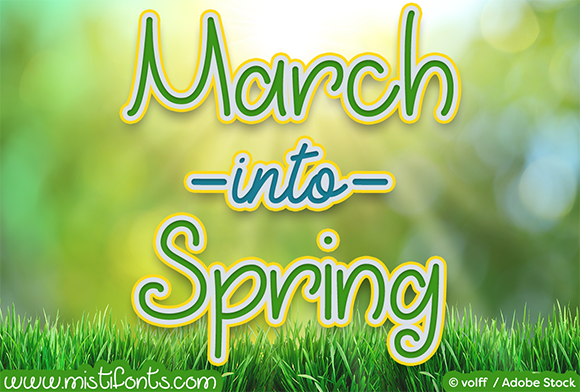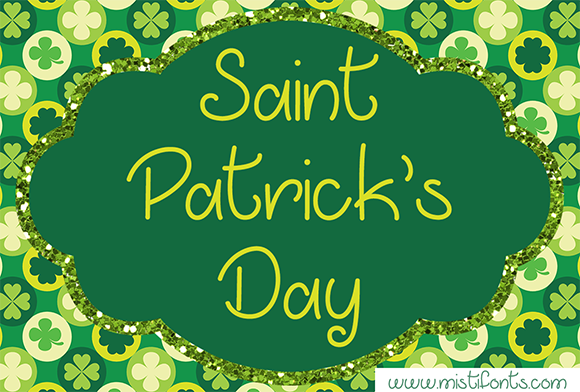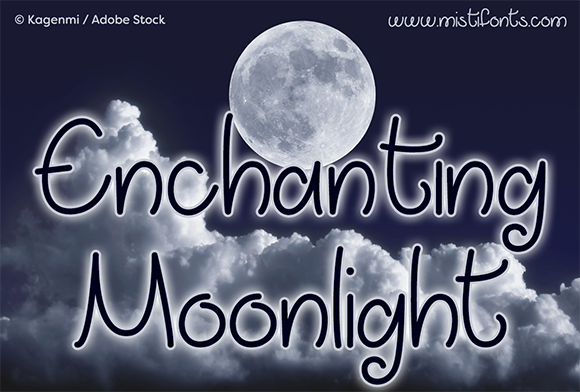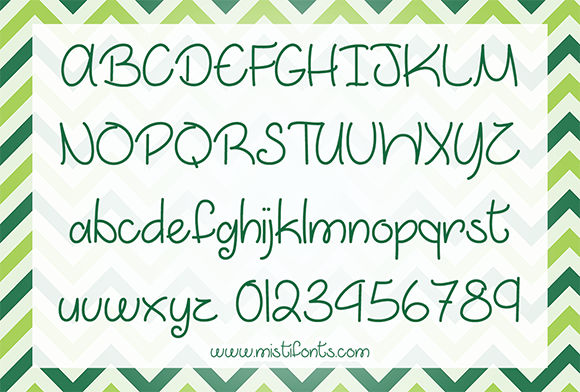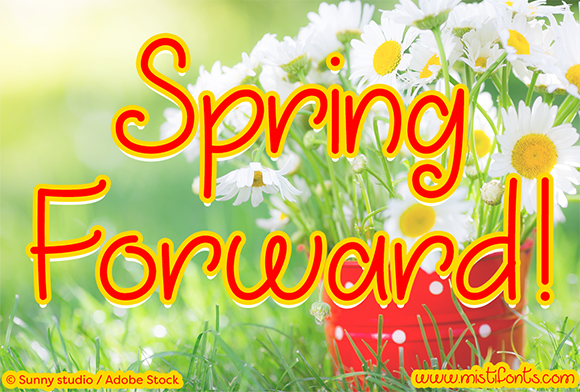
HomeScript FontsMarch into Spring Font Script Fonts March into Spring Font FacebookXPinterestWhatsApp March into Spring Font Poster 2 March into Spring Font Poster 3 March into Spring Font Poster 4 March into Spring Font Poster 5 About March into Spring Font March into Spring is a cute, handwritten font that is perfect for your craft and design needs! DOWNLOAD NOW People also explored Mansions Font Region Font Beautiful Sunrise Font Darkside Offline Font Aluna Font Smart School Font Amelia Esthery Font Holly Jolly Font 282 0 TagsMarch into Spring Font Previous articleCalm Waters FontNext articleAre You Freakin Serious Font LEAVE A REPLY Cancel reply Comment: Please enter your comment! Name:* Please enter your name here Email:* You have entered an incorrect email address! Please enter your email address here Website: Save my name, email, and website in this browser for the next time I comment. Personal Use Free Rolling Door Personal Use Free Read more about this font Williana Personal Use Free Read more about this font City Tour Personal Use Free Read more about this font Arnitta Callina Personal Use Free Read more about this font BLOG To increase your work productivity, choose the most readable fonts. In today's fast-paced work environment, where digital communication and information consumption are integral to our daily routines, the choice of fonts can significantly impact... Top 7 Google Fonts Alternatives for Faster and Privacy-Friendly Web Design (2025) Fonts That Capture the Spirit of New York City Best Fonts for YouTube Videos: Make Your Thumbnails Stand Out